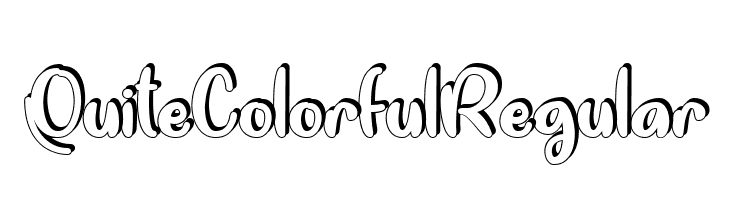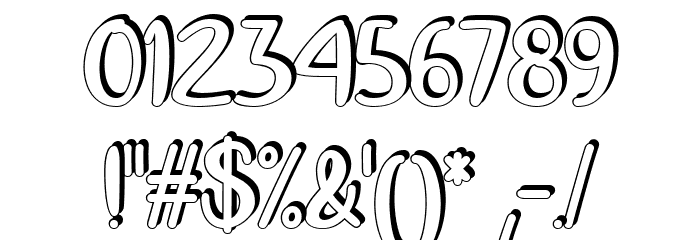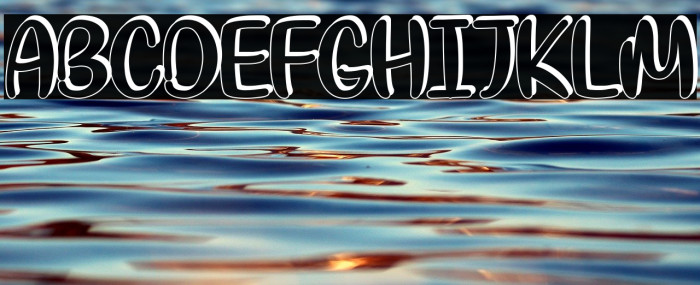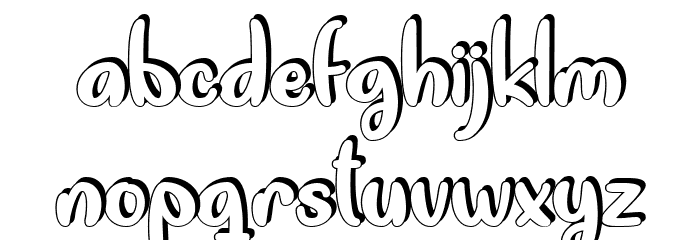
Quite Colorful Regular Font
This font features a playful and dynamic style with a bold, outlined appearance. Each character is crafted with a thick, black outline that creates a striking contrast against the white interior, giving it a three-dimensional effect. The letters have a rounded, bubbly form, adding to its whimsical and friendly aesthetic. The uppercase and lowercase letters maintain a consistent style, with smooth curves and a slightly informal touch. Numbers and special characters follow the same design principles, ensuring uniformity across all glyphs. This font is ideal for projects that require a fun and engaging look, such as children's books, party invitations, or playful branding.
A playful, outlined font with a bold, bubbly style and three-dimensional effect.
• Proposed Projects: Ideal for children's books, party invitations, playful branding, and creative posters.
• Category: Decorative/Display
• Bold: Yes
• Italic: No
• Weight: Bold
• Width: Normal
• Character Spacing: Normal
• Contrast: High
• Overall Style: Playful, Whimsical
• Use Case: Headlines, Logos, Posters